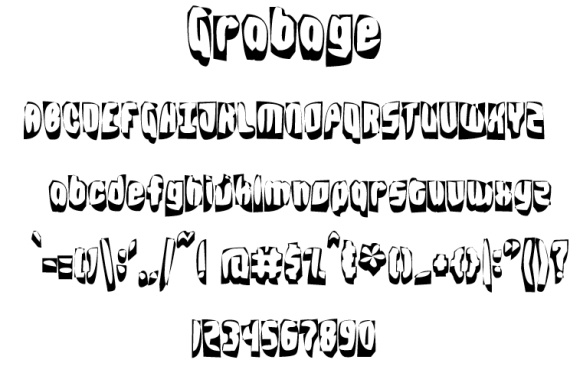
Introducing Grabage Font: The Playful and Quirky Typeface for Creative Projects
Are you tired of using the same old boring fonts in your designs? Look no further than Grabage Font, a funny little decorative font that’s perfect for adding a touch of whimsy to your projects. With its cut-out, zine-like aesthetic, Grabage is ideal for use in playful and relaxed projects where you want to add a bit of personality.
The Personality of Grabage Font
Grabage Font is a font that doesn’t take itself too seriously, and that’s what makes it so charming. It’s a font that’s meant to be used creatively, to add a bit of humor and lightheartedness to your designs. Whether you’re working on a project for a children’s book, a zine, or a craft blog, Grabage Font is the perfect choice.
Key Features of Grabage Font
- Cut-out, zine-like aesthetic: Grabage Font has a unique, cut-out look that’s reminiscent of zines and DIY publications.
- Playful and quirky: This font is designed to add a bit of humor and whimsy to your designs.
- Perfect for creative projects: Whether you’re working on a craft blog, a children’s book, or a zine, Grabage Font is the perfect choice.
Using Grabage Font in Your Designs
Grabage Font is a versatile font that can be used in a variety of creative projects. Here are a few ideas to get you started:
- Craft blogs: Add a touch of personality to your craft blog with Grabage Font. Use it to title your posts, create headings, or add a bit of whimsy to your sidebar.
- Children’s books: Grabage Font is perfect for use in children’s books, where its playful and quirky aesthetic can help bring your story to life.
- Zines: Grabage Font is a natural fit for zines, where its cut-out, DIY aesthetic can help add to the overall vibe of your publication.
- Social media graphics: Use Grabage Font to add a bit of personality to your social media graphics. Create fun and playful graphics that showcase your brand’s personality.
Tips for Getting the Most Out of Grabage Font
Here are a few tips for getting the most out of Grabage Font:
- Experiment with different sizes: Grabage Font looks great in a variety of sizes, from small and delicate to large and bold.
- Pair it with other fonts: Grabage Font pairs well with a variety of other fonts, including sans-serif fonts and script fonts.
- Use it to add emphasis: Use Grabage Font to add emphasis to certain words or phrases in your designs.
- Have fun with it: Most importantly, have fun with Grabage Font! Experiment with different uses and see what works best for your project.
Grabage Font is a playful and quirky font that’s perfect for adding a touch of personality to your designs. With its cut-out, zine-like aesthetic and easy-to-use digital format, Grabage Font is the perfect choice for crafters, designers, and anyone looking to add a bit of whimsy to their projects. So why not give it a try and see what kind of creative projects you can come up with?